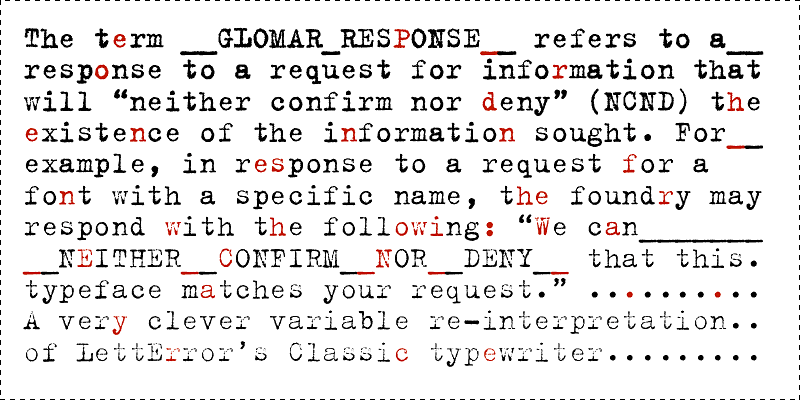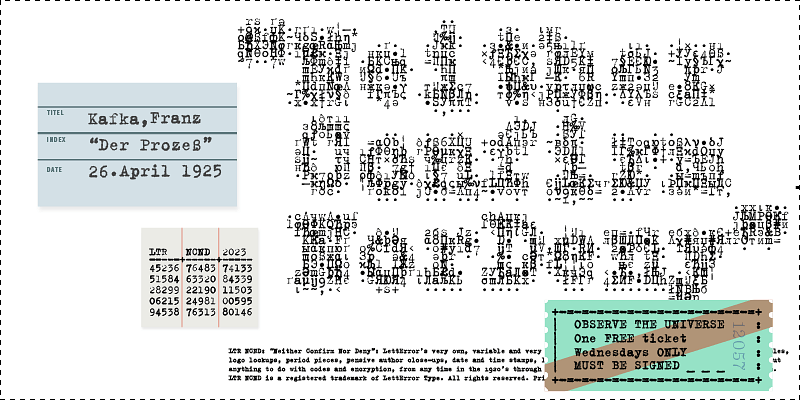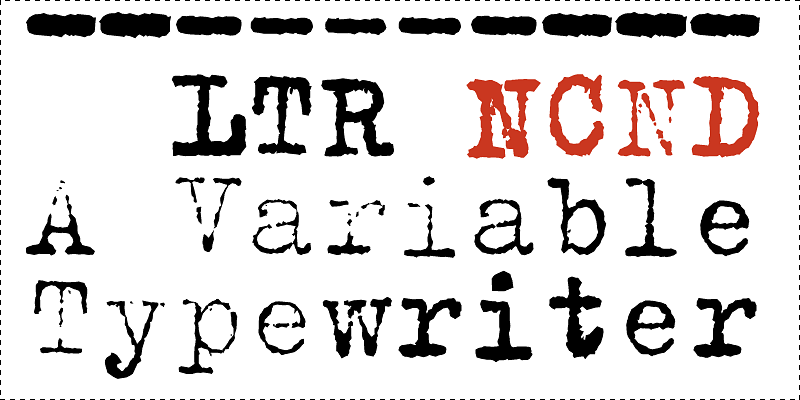
NCND (Neither Confirm Nor Deny) is the new name for the original dirty, digital typewriter face best-known from The X-Files. Now a variable font, this improved version interpolates seamlessly between even lighter and heavier extremes. A monospaced classic, it has an extended Latin character set as well as Greek and Cyrillic support.